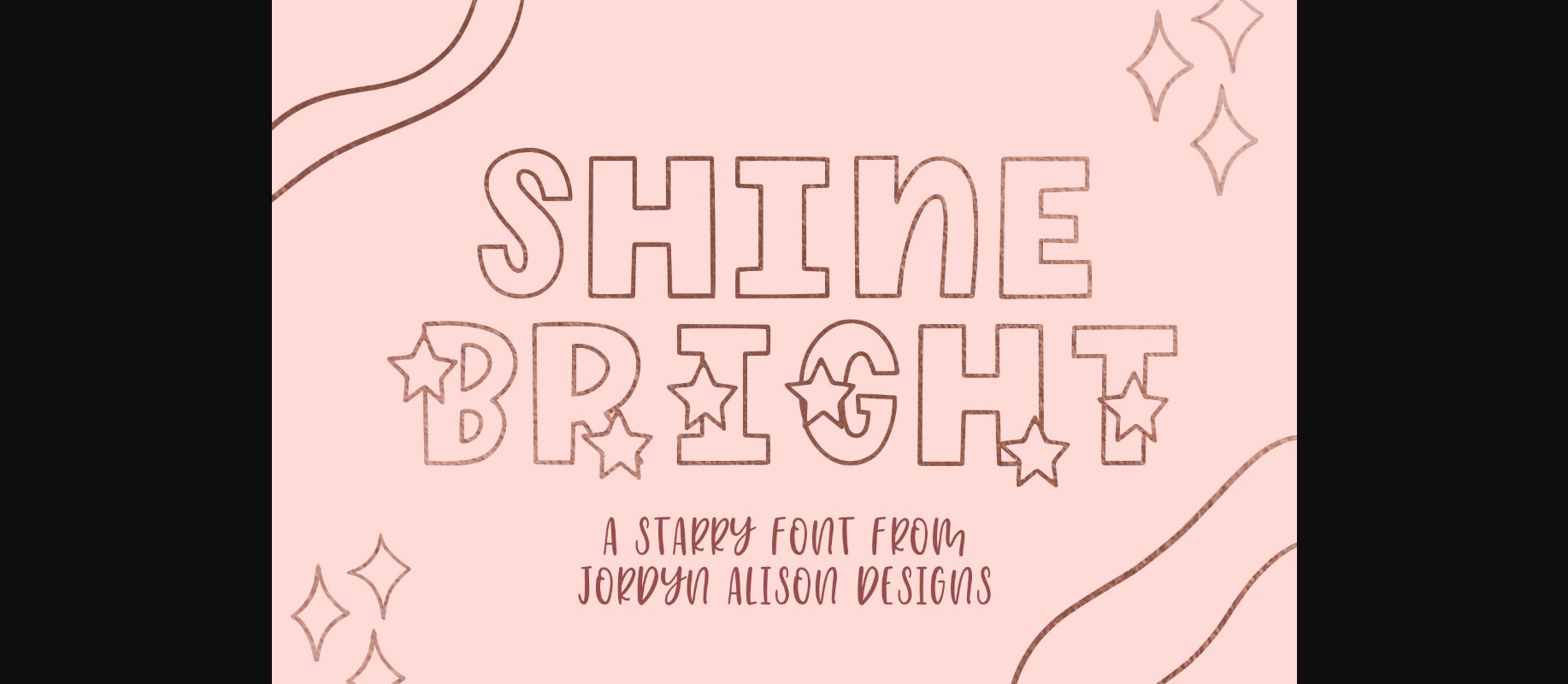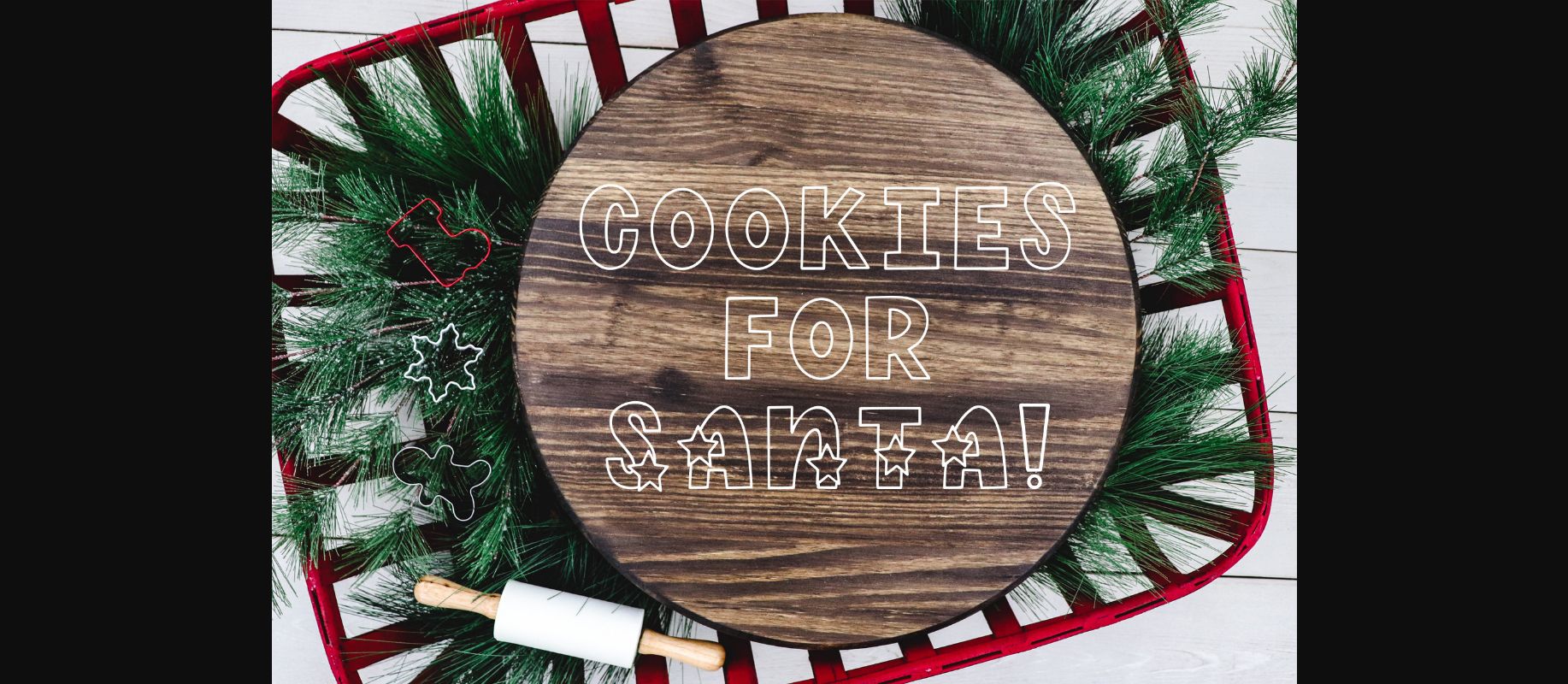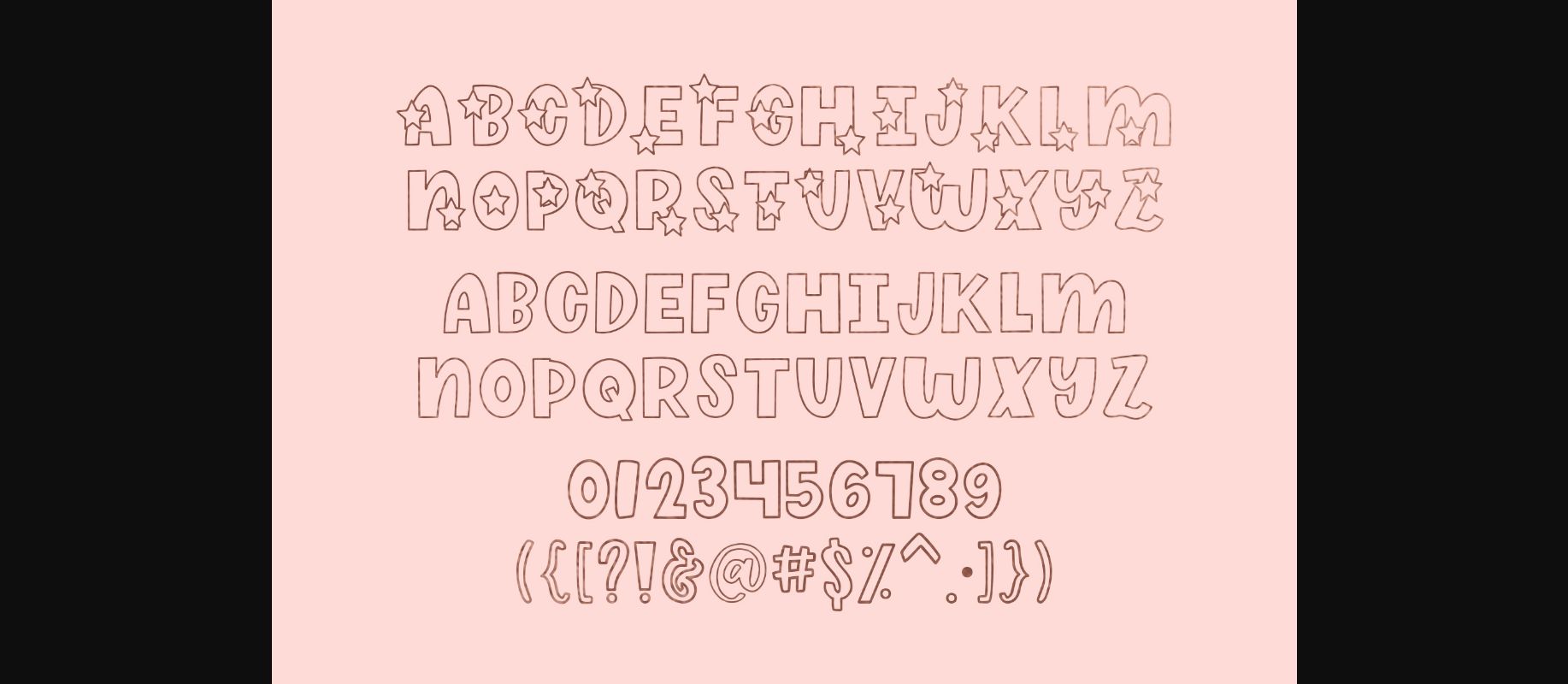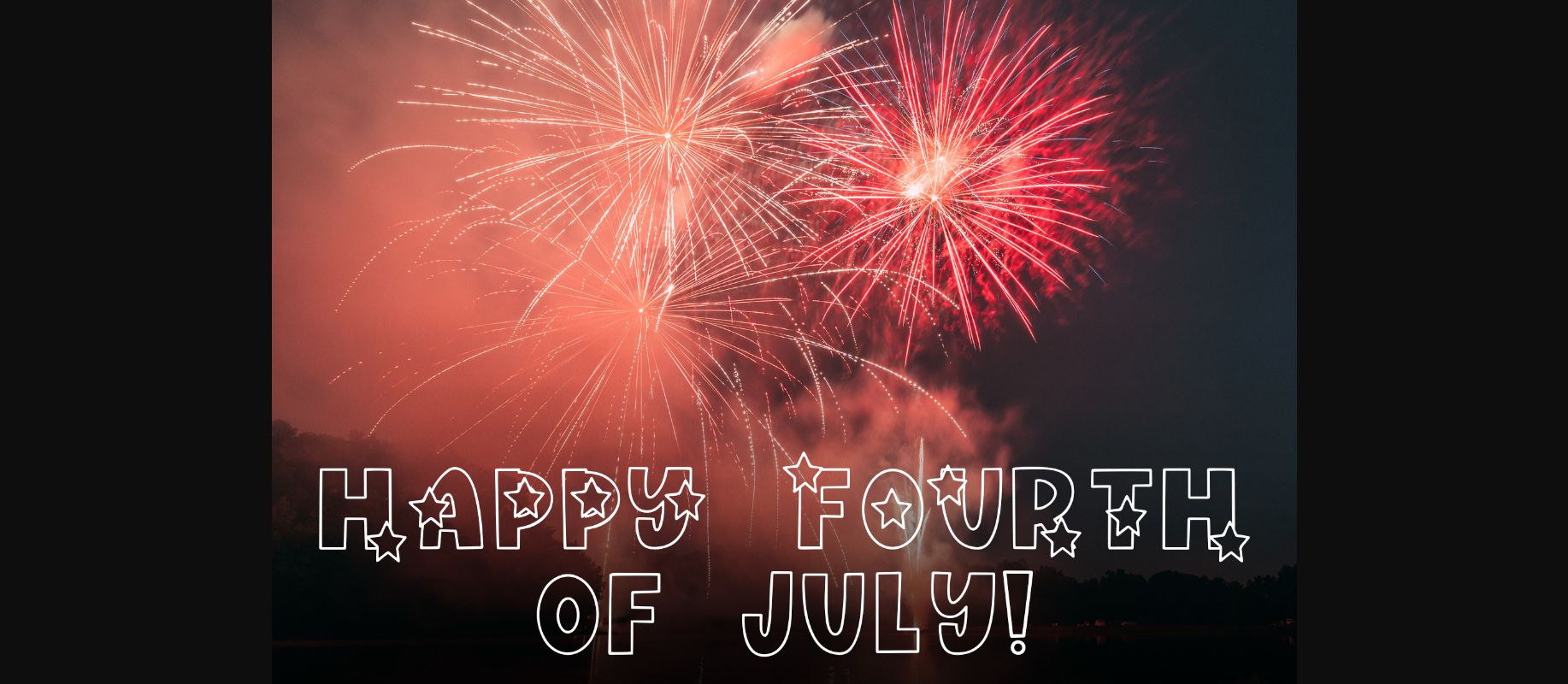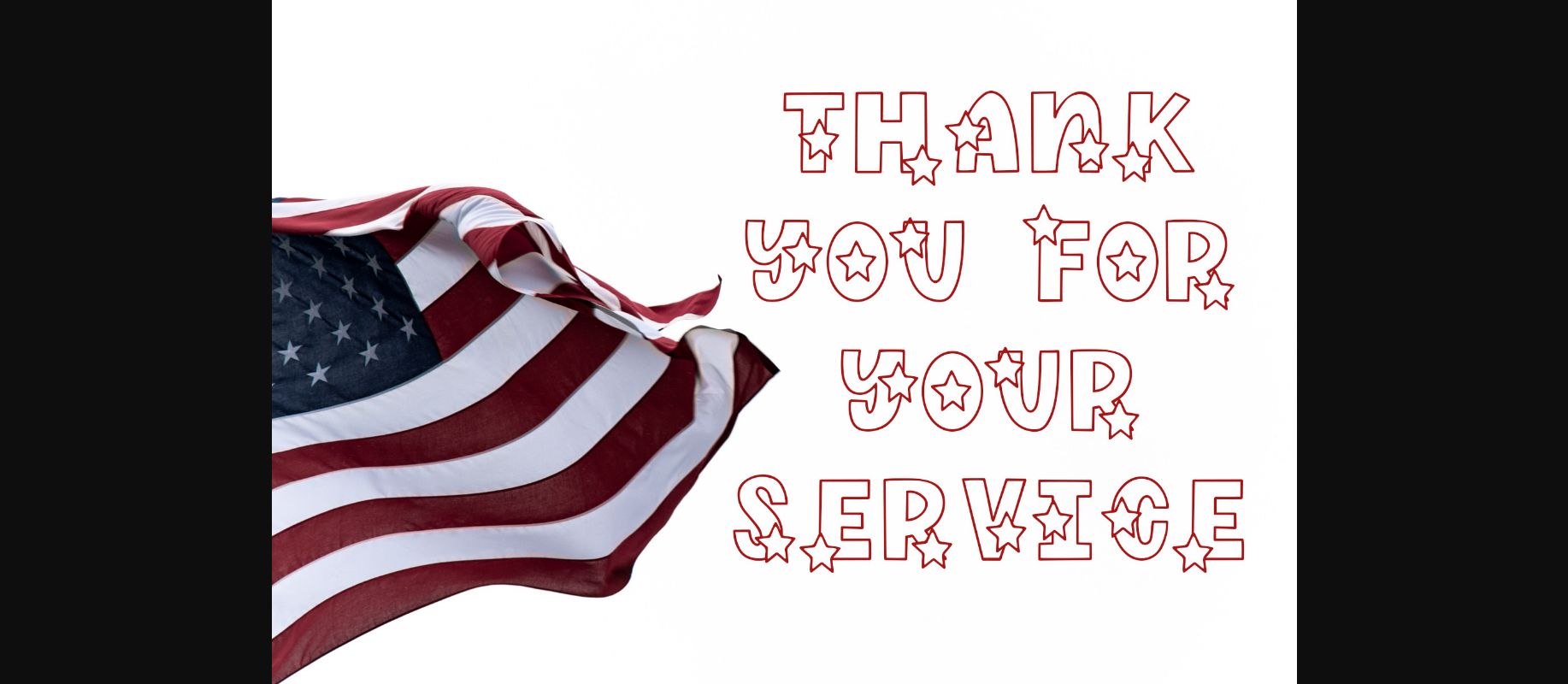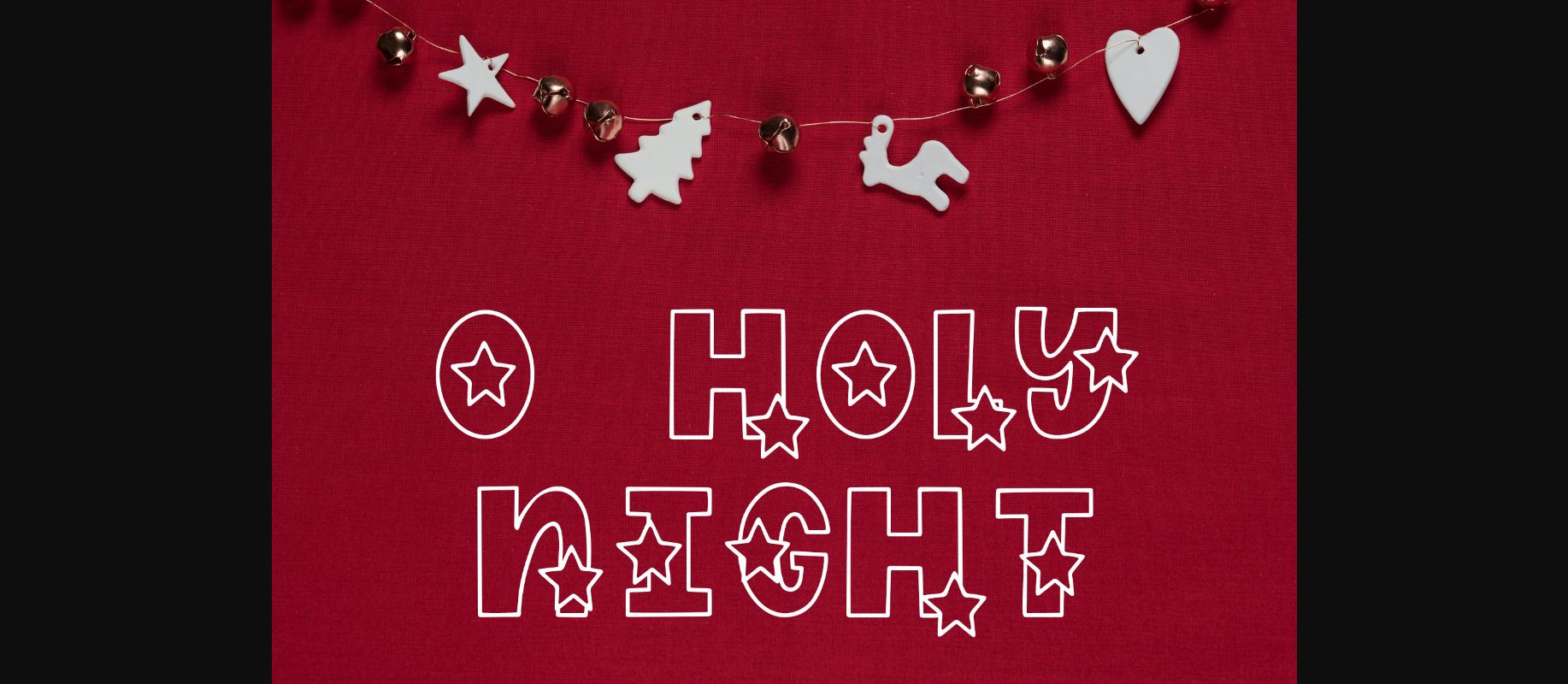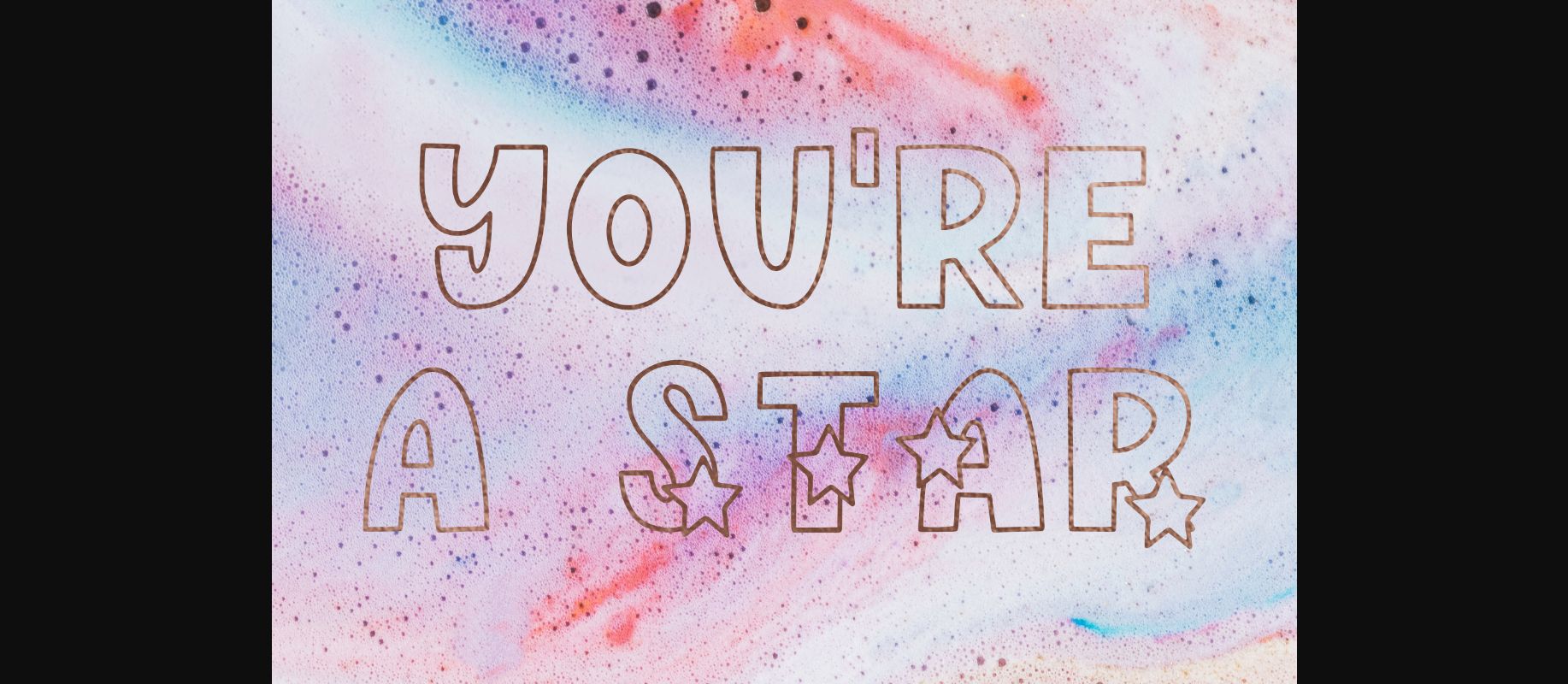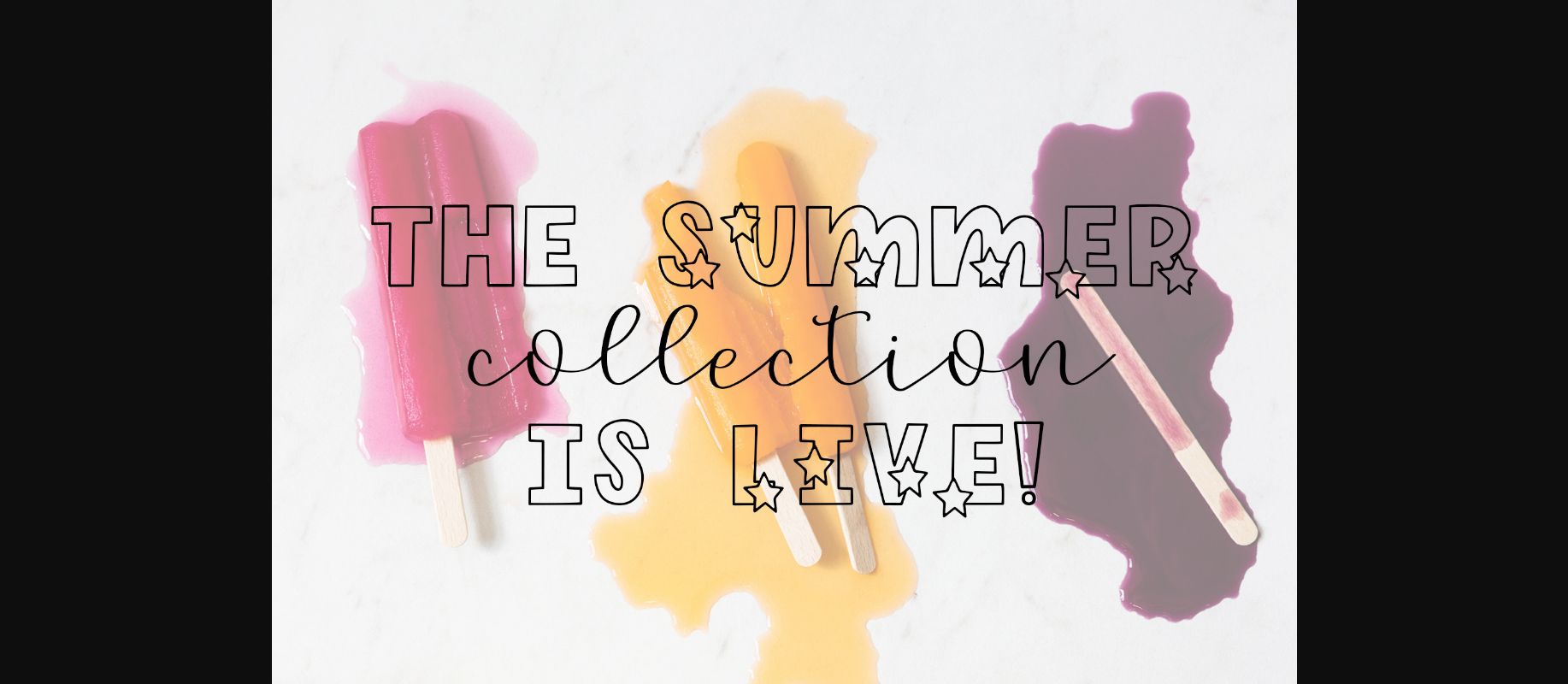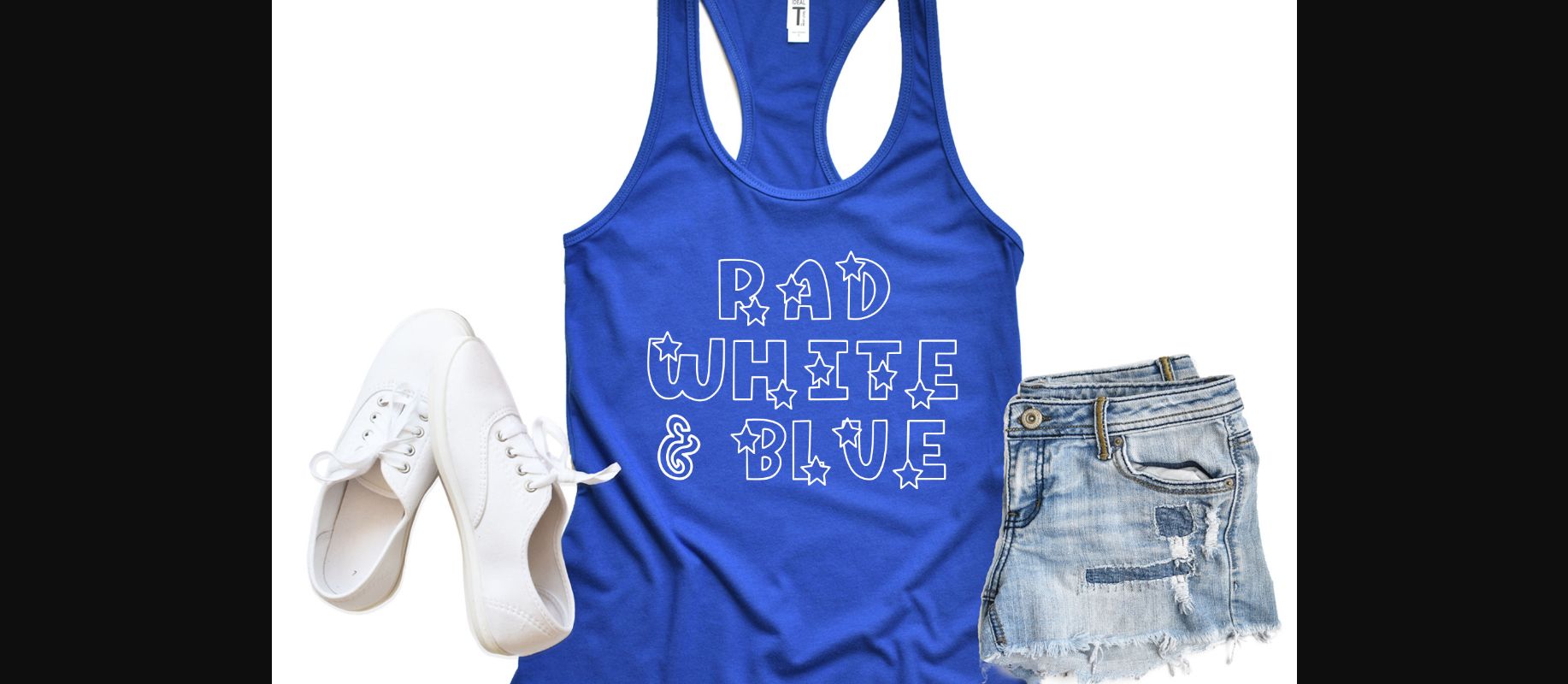
HomeDecorative FontsShine Bright Font Decorative Fonts Shine Bright Font FacebookXPinterestWhatsApp 1 of 11 ... Shine Bright Font Poster 2... Shine Bright Font Poster 3... Shine Bright Font Poster 4... Shine Bright Font Poster 5... Shine Bright Font Poster 6... Shine Bright Font Poster 7... Shine Bright Font Poster 8... Shine Bright Font Poster 9... Shine Bright Font Poster 10... Shine Bright Font Poster 11... About Shine Bright Font Introducing Shine Bright – a starry decorative font with whimsical characters and a playful vibe. Use it to add some fun to your designs! DOWNLOAD NOW People also explored Rustcyber Font Love is Awesome Font Tokiyo Thin Font Angel Rise Font Sweet Doggies Font Fly to Rise Font Dark Saturday Font Good Vibes Font Ainisti Font 286 0 TagsShine Bright Font Previous articleFunny Beauty FontNext articleSlice of Summer Font LEAVE A REPLY Cancel reply Comment: Please enter your comment! Name:* Please enter your name here Email:* You have entered an incorrect email address! Please enter your email address here Website: Save my name, email, and website in this browser for the next time I comment. Personal Use Free Historise Personal Use Free Read more about this font Eniem Personal Use Free Read more about this font Mellgatha Personal Use Free Read more about this font Victorian Ornaments Personal Use Free Read more about this font BLOG Free Fonts Risk: Why Free Fonts Can Be Dangerous for Designers Free Fonts Risk: Why Free Fonts Can Be Dangerous for Designers Using free fonts is a common practice in web and graphic design. However, the... Top 10 Handwritten Fonts That Elevate Your Designs Using Fonts in Digital Marketing: Tips to Strengthen Your Brand Identity Best Fonts for T-Shirt Design – Top 2025 Picks